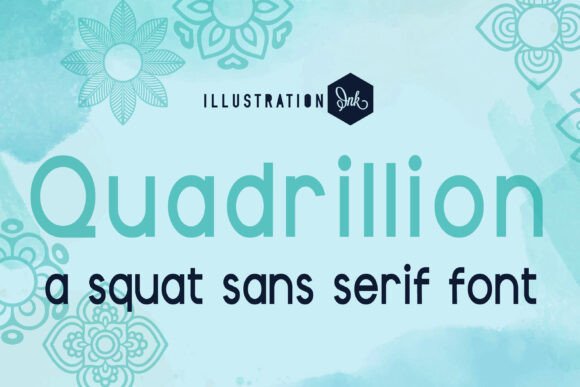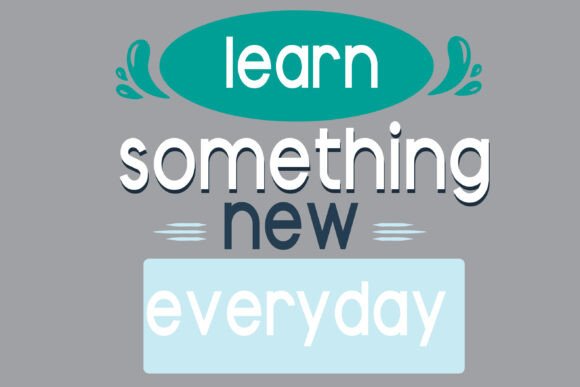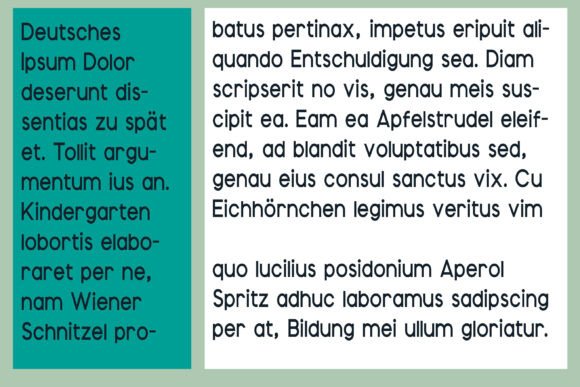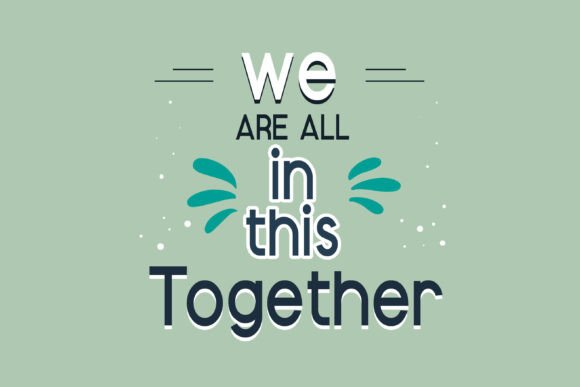
Quadrillion Font
About the Quadrillion Font
Let us introduce you to Quadrillion Font, where timeless design meets modern craftsmanship. This hand-crafted sans serif is squatty and a bit modern.
Quadrillion excels as a display typeface for headlines, short text blocks in branding materials, and striking poster designs. Its squat, bold nature commands attention and works well in large sizes. However, its handcrafted quality makes it unsuitable for body copy or lengthy paragraphs; legibility suffers at smaller sizes. Avoid using it in user interfaces or applications requiring extensive text.
Its personality is decidedly bold and modern, with a hint of playful informality. Therefore, it pairs well with clean, geometric sans-serif fonts like Futura or a classic serif like Garamond for a balanced contrast. For a more playful feel, consider pairing it with a script font possessing similar boldness.
For brands aiming for a confident, contemporary image with a touch of handmade authenticity—think artisan goods, craft breweries, or edgy streetwear—Quadrillion would be a strong choice.
Quadrillion Font Usage Examples
Quadrillion Font Example